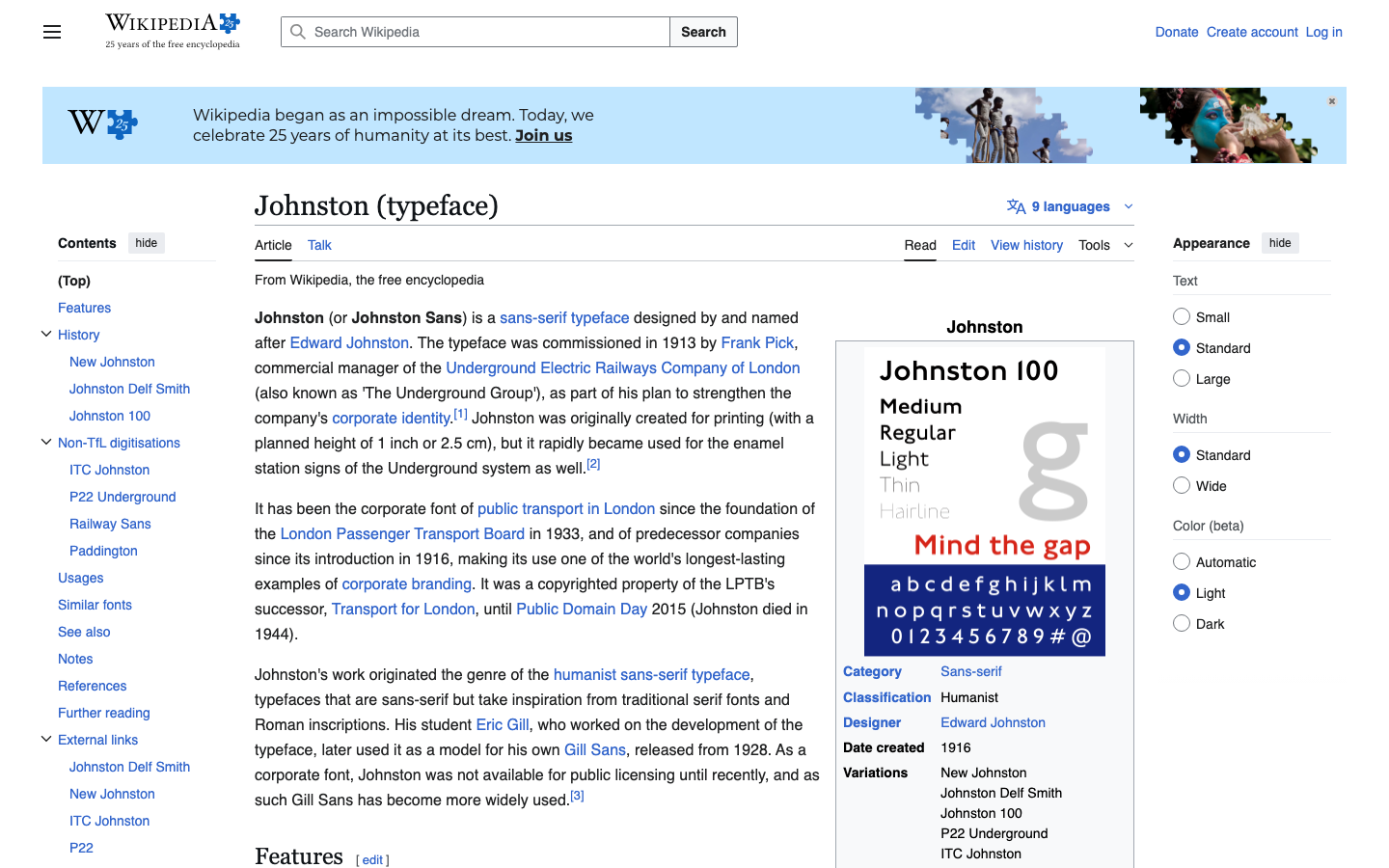
Johnston vs Meta
Johnston and Meta are both sans-serif typefaces sharing a humanist foundation. Where Johnston leans branding, Meta brings warm, readable. Compare which suits your Wayfinding project.
Design overlap:40%
Recommended: Johnston
- branding design character
- Suited for Transit and Signage
- From ITC
Consider: Meta
- warm, readable design character
- Suited for Ui and Editorial
- From FontFont